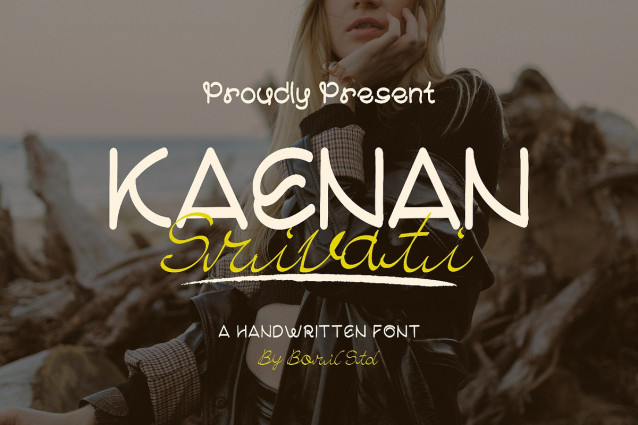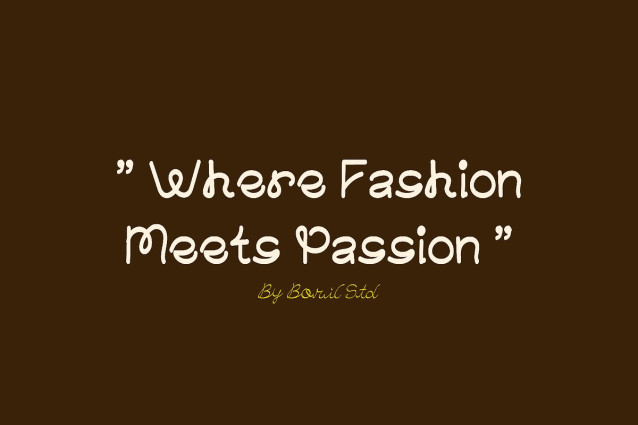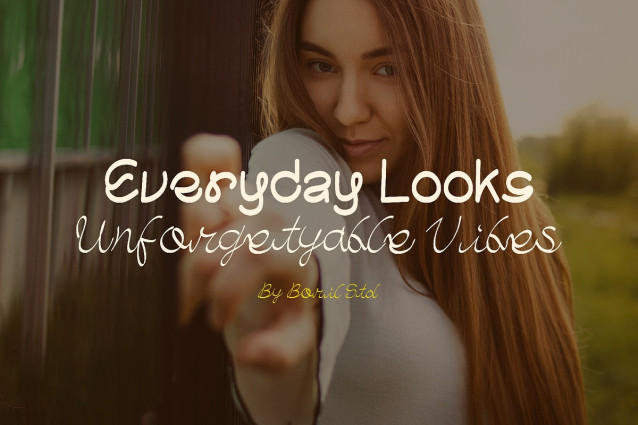
Kaenan Srivati Font
Kaenan Srivati ​​​​​​font has a cheerful and friendly style. The strokes are designed to be comfortable, giving a natural and close feeling. The curves are gentle and slightly irregular, giving a natural and expressive feeling.
Srivati ​​​​​​font gives a sense of elegance and femininity. Its writing style is like a handwritten calligraphy stroke, giving a soft, romantic and close feeling.